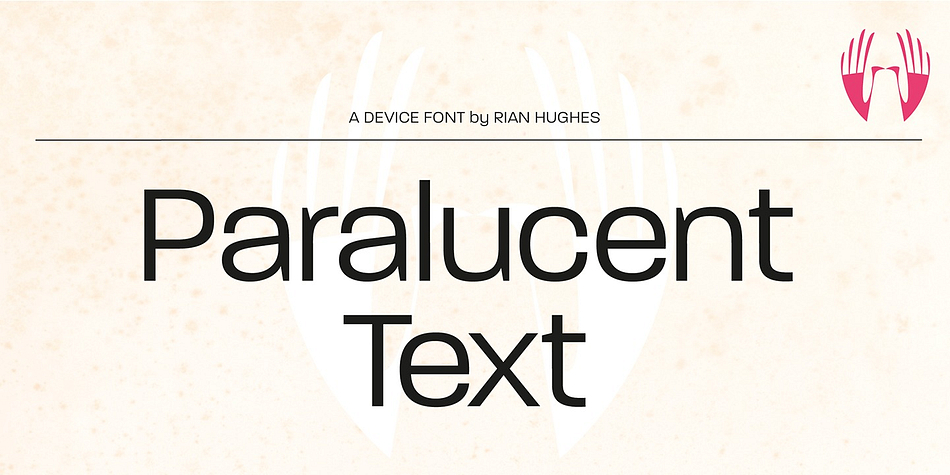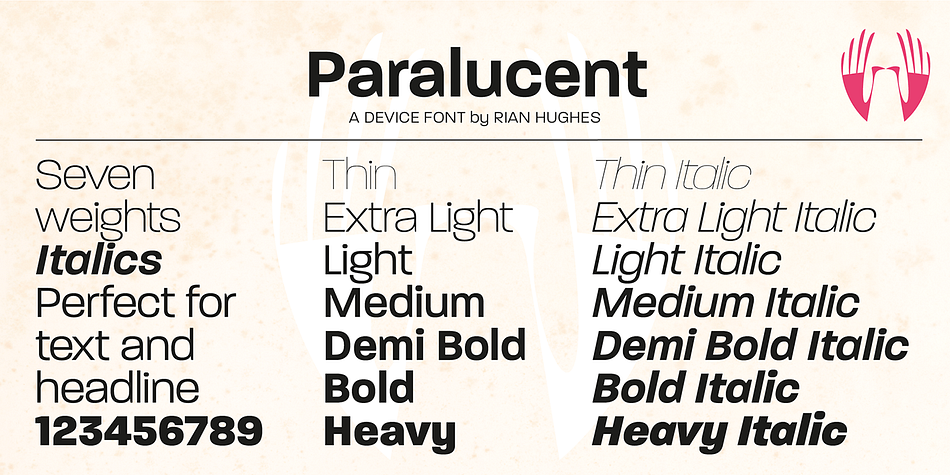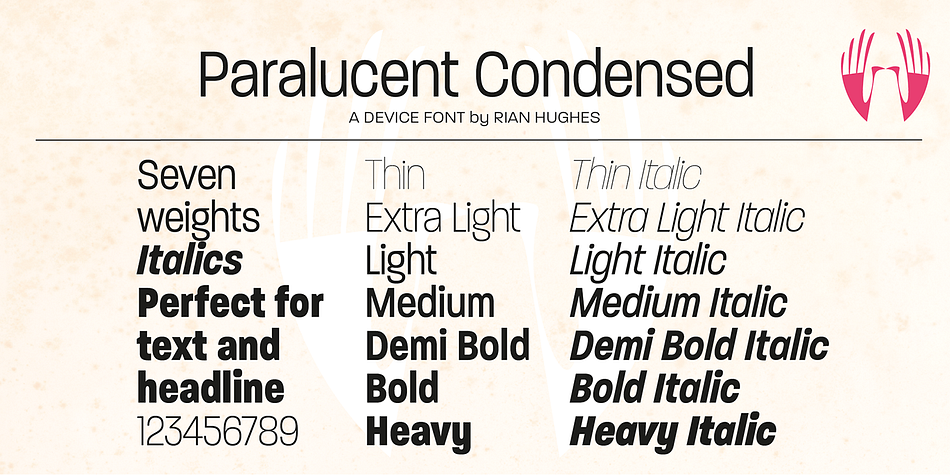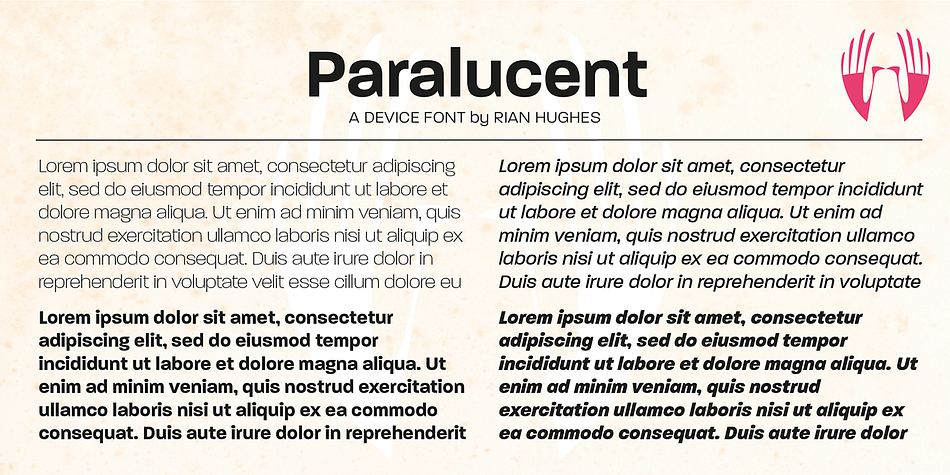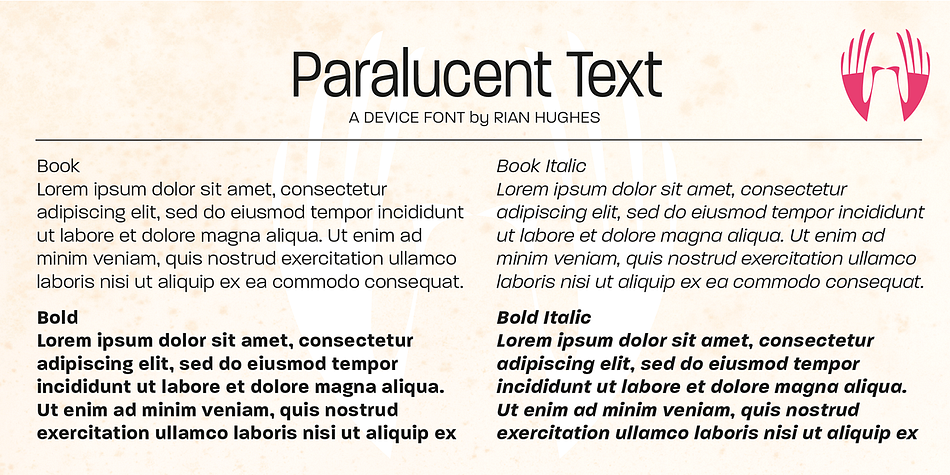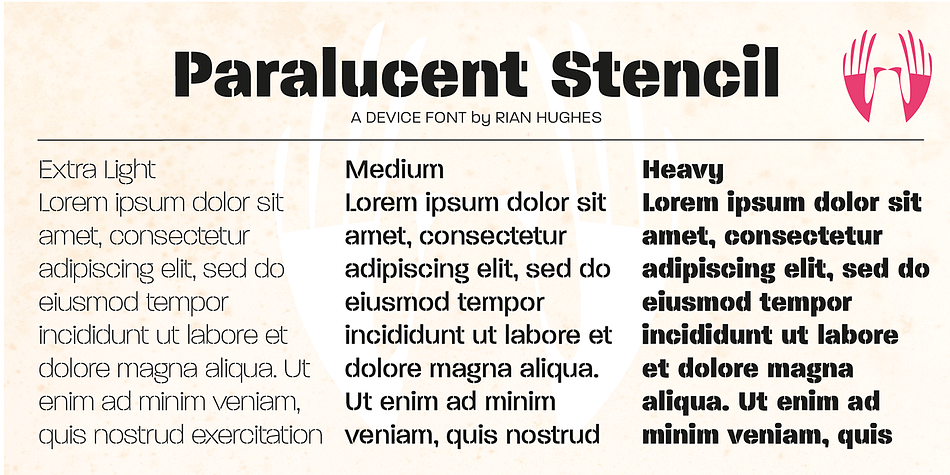
Designed by Rian Hughes, Paralucent is a sans serif and stencil font family. This typeface has thirty-five styles and was published by Device.
Designed to be a warm and versatile all-purpose modern sans in the tradition of Univers and Helvetica, but avoiding the calligraphic idiosyncrasies of the latter or the foregrounded optical corrections of the former.
Paralucent is available in a wide range of weights from Thin to Heavy, in two widths each with italics.
There are two additions to the core 28-weight family: a three-weight stencil set, and a four weight text family. The text weights have been adjusted for use at small point sizes, and feature more open character shapes, looser inter-letter spacing for improved readability, and lining numerals for use in listings and tables.
Several core ideas inform Paralucent’s design. Prime attention has given to the negative space between characters, giving a more even “colour”, especially in text. For example, the J, L and T have shorter arms than comparable sans typefaces. The A has a lower bar, opening up the interior counter. An unusually high lower-case x-height again helps to give a more even colour and improve legibility.
Care has been taken to rationalise repeated elements like the tails on lower-case letters, the Q and the “ear” of the g. Typographic design solutions that are consistent across all these features add to its stylistic cohesion.